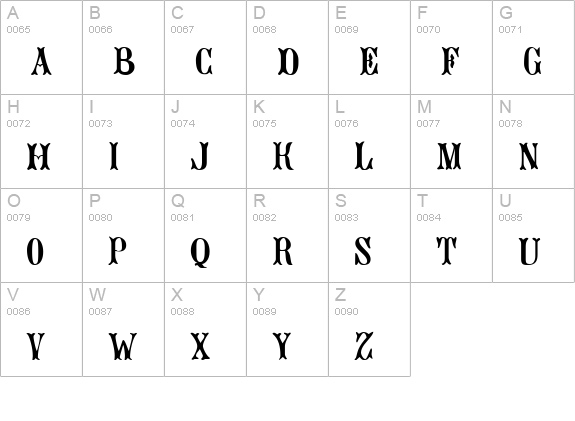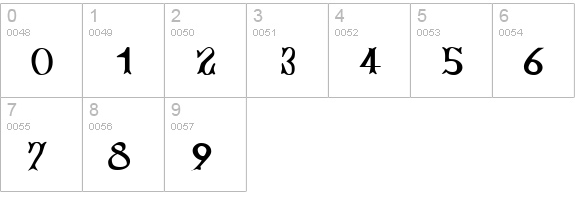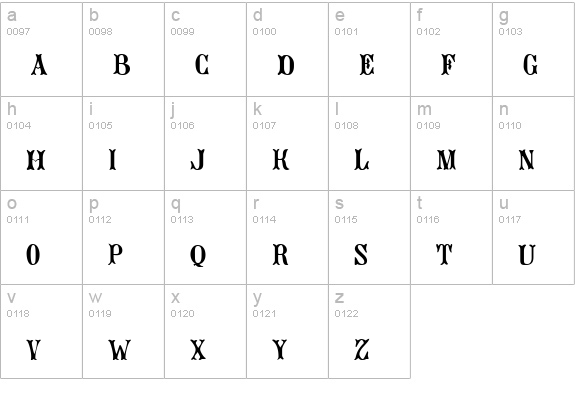
Jacques Regular Font Details
Jacques Regular is the standard, neutral variant in the Jacques typeface family \xE2\x80\x94 well suited to general body text, paragraphs, and standard typographic work.
Introducing Jacques Regular, a timeless and elegant font that effortlessly captures the essence of classic typography. With its clean lines and balanced proportions, Jacques Regular is the perfect choice for any project that requires a touch of sophistication and refinement. This versatile font is suitable for a wide range of applications, from branding and logo design to editorial layouts and web design. Its versatility lies in its ability to adapt to any style or concept, making it an essential tool for designers seeking to bring their creative visions to life. What sets Jacques Regular apart is its seamless blend of traditional and contemporary design elements. The carefully crafted letterforms strike the perfect balance between classic elegance and modern simplicity, making it a truly unique and visually pleasing font. And the best part? Jacques Regular is free to download at FontsMarket.com. Yes, you read that right – this exceptional font is freely available, allowing designers and creatives to access its beauty without breaking the bank. Whether you're a professional designer or a DIY enthusiast, Jacques Regular is a font that will elevate your projects to new heights. Its timeless appeal and effortless charm will captivate audiences and leave a lasting impression. So, why wait? Discover the beauty of Jacques Regular today and unlock the unlimited possibilities it offers. Head over to FontsMarket.com and download this incredible font for free. Let Jacques Regular become your go-to choice for creating stunning designs that are sure to leave a lasting impact.